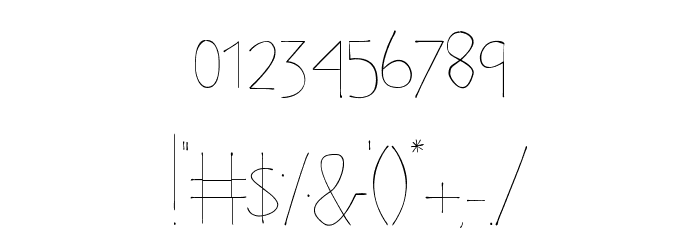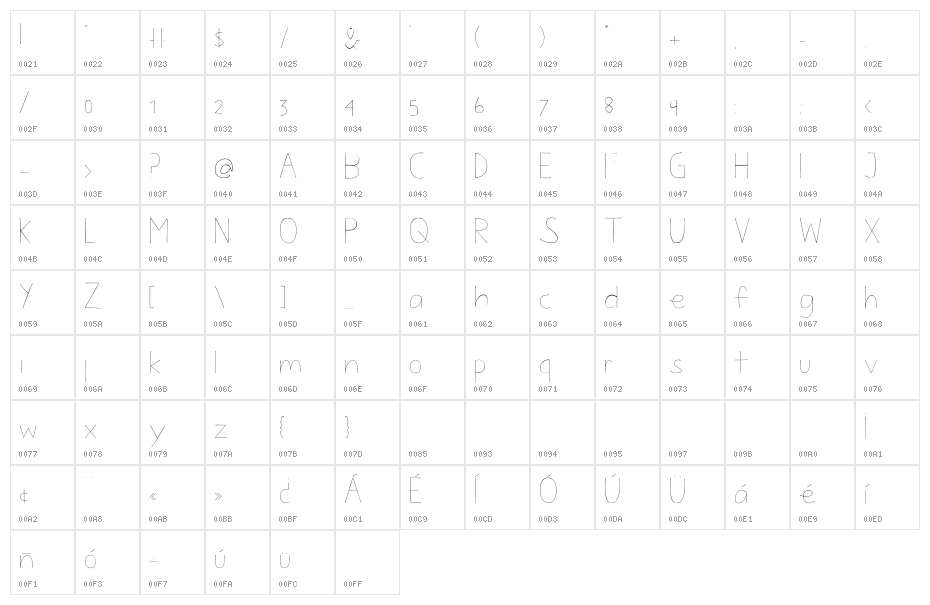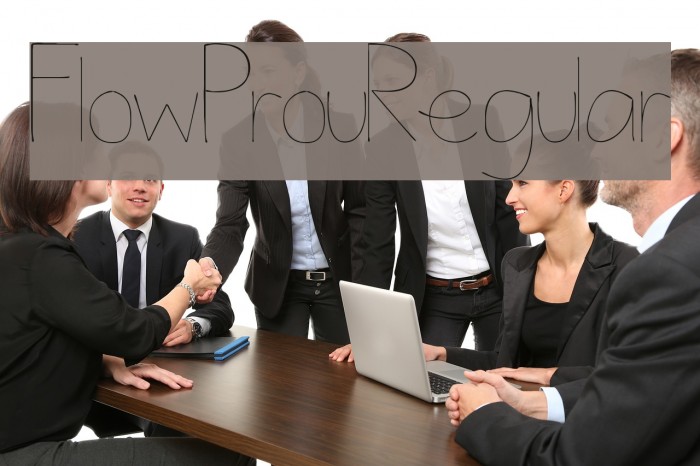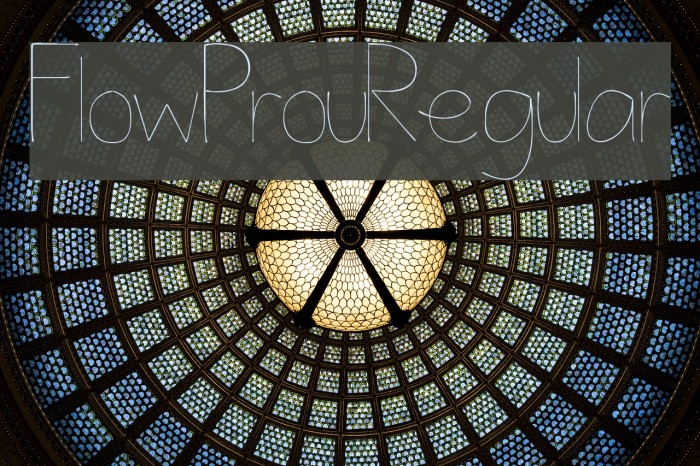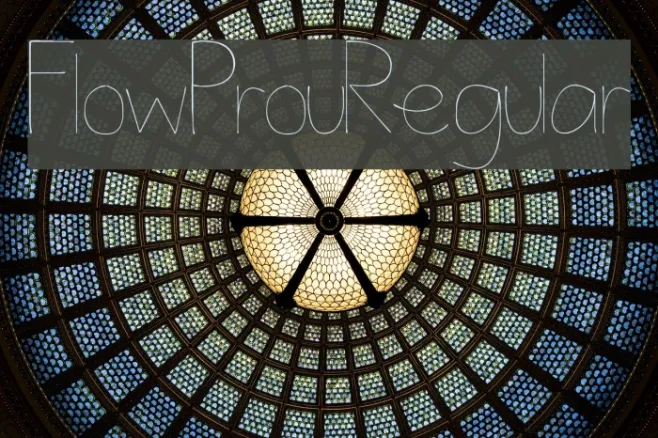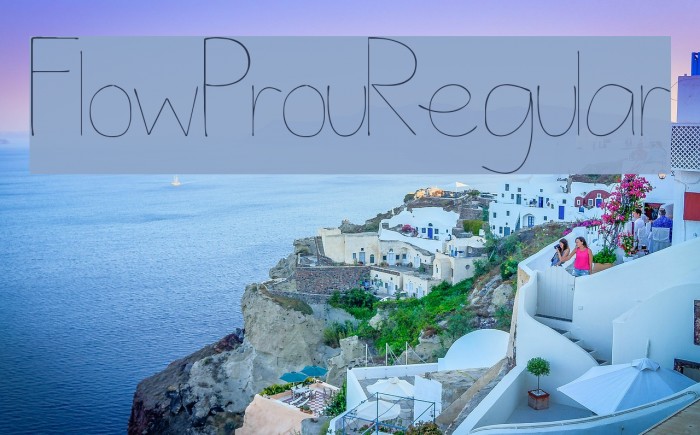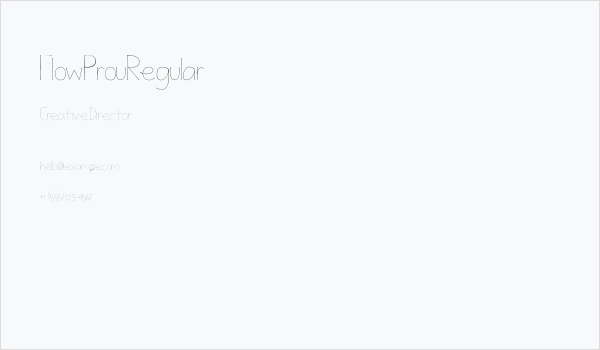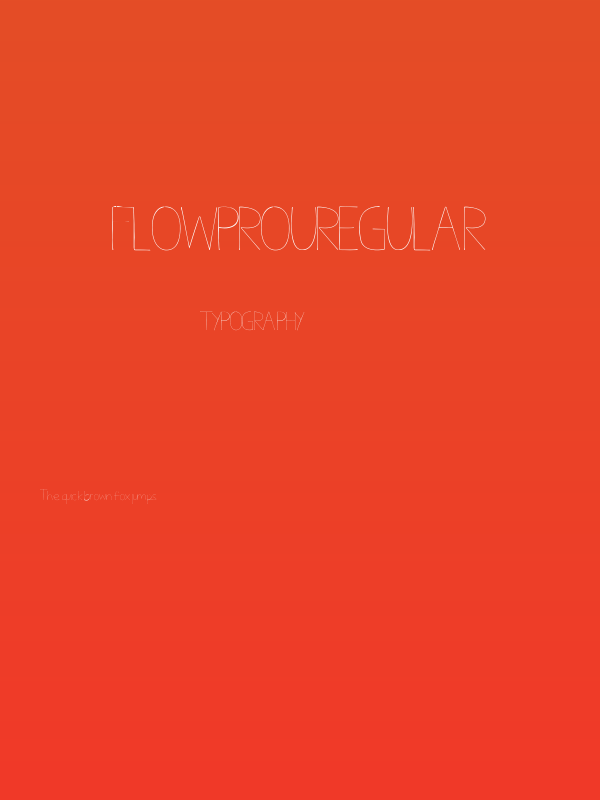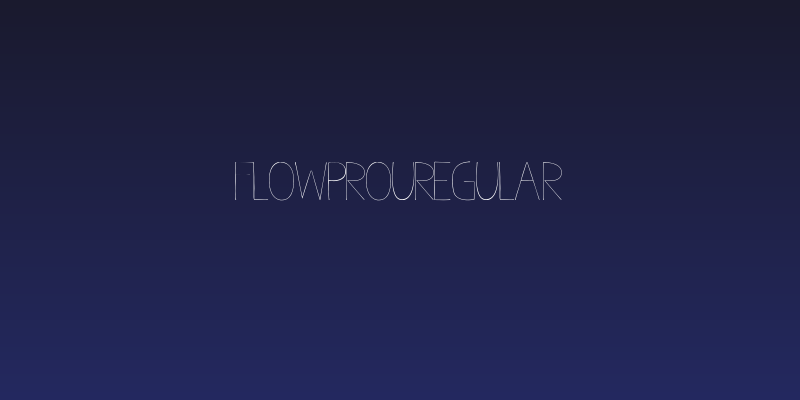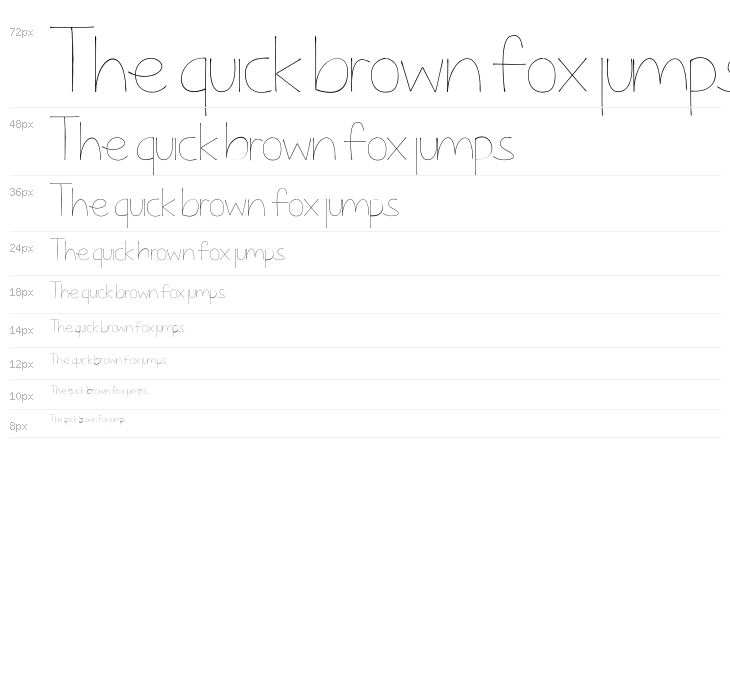
FlowProuRegular Font
FlowProuRegular Description
This font features a delicate and airy design, characterized by its thin, elongated strokes and minimalistic style. The uppercase and lowercase letters maintain a consistent height, creating a harmonious flow across the text. The characters exhibit a modern, geometric aesthetic with slightly rounded edges, lending a sense of elegance and sophistication. The numerals and special characters are crafted with the same attention to detail, ensuring uniformity throughout. This font's light and open appearance makes it suitable for projects that require a touch of elegance and modernity.
Proposed ProjectsIdeal for fashion magazines, minimalist branding, elegant invitations, and modern web design.